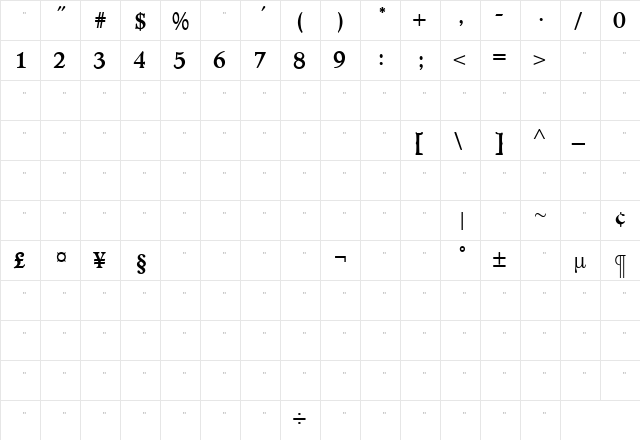
TCAdministerBoldTab Roman
Design Context for TCAdministerBoldTab Typeface
TCAdministerBoldTab offers clean, dependable letterforms without strong stylistic allegiance, making it a practical choice for designers who need flexibility. The heavy weight commands attention and anchors typographic hierarchies.